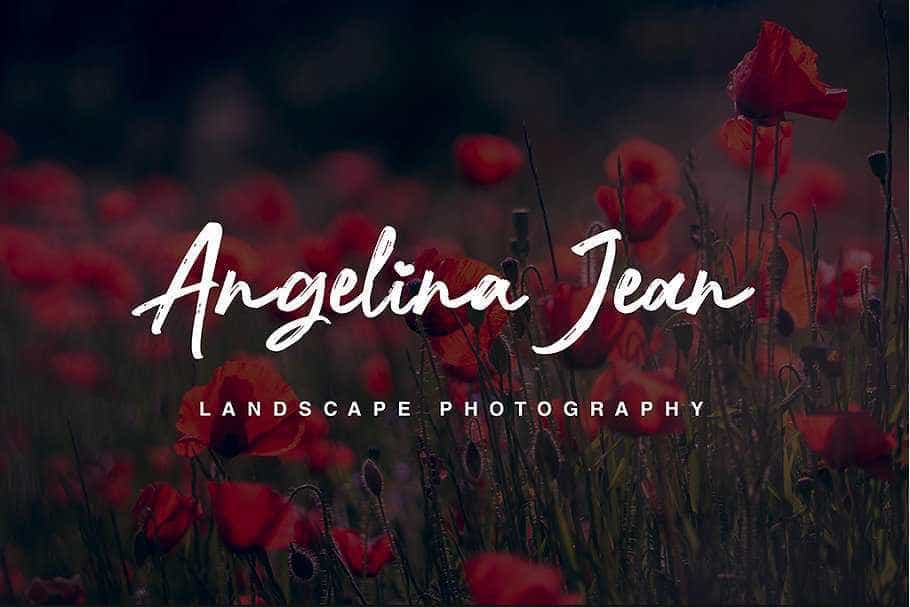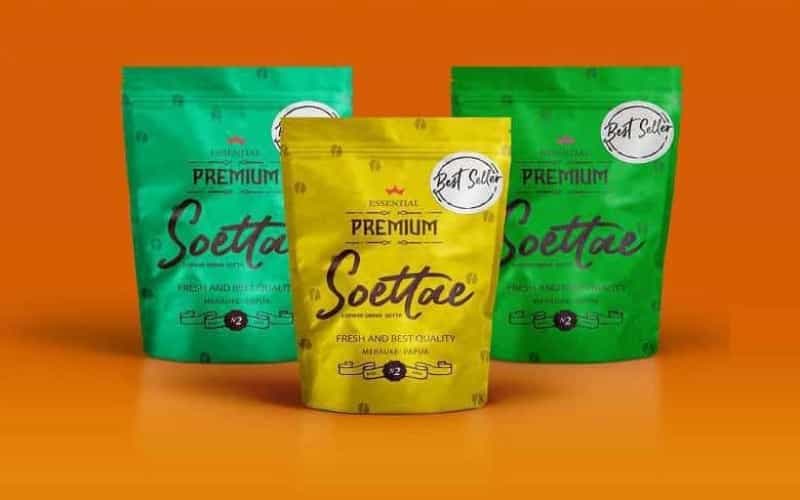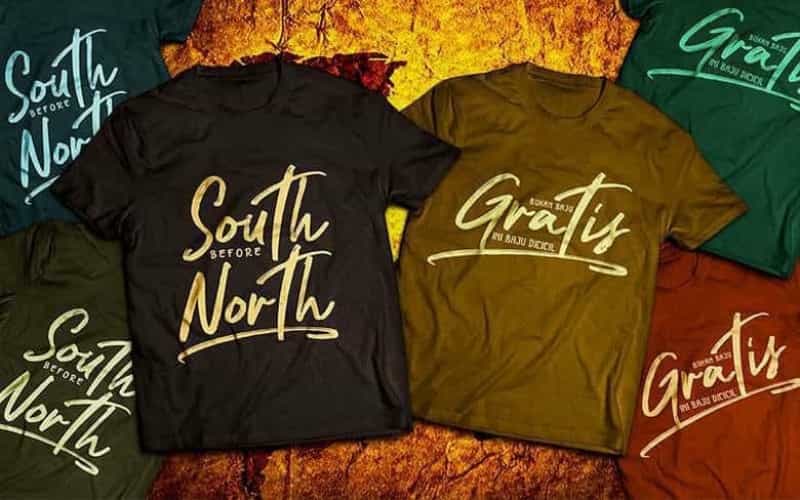
Welcome to the Nocturnal brush script typeface! We, at MLKWSN studios, present the PACK that includes two fonts and Extra swash. One of the special features of the theme is that the Nocturnal is ready to provide you with the international language support for all your design needs that will make the use of the artificial tastes, as well as the overall extravagant and sophisticated look of the site in case you are going to have one.